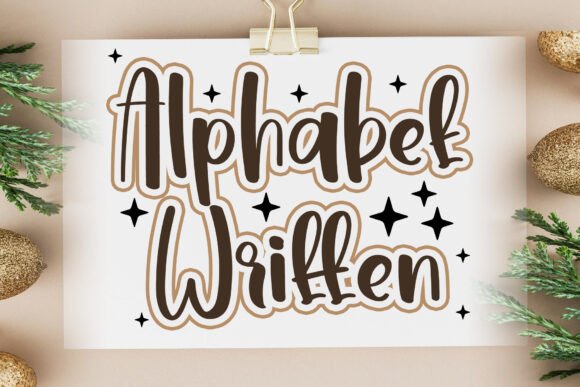
The Magic of Alphabet Written Font: Elevate Your Designs with Elegance
I’ll never forget the time I was working on a DIY project for a client’s wedding invitation. I had the perfect design concept, but I was struggling to find a font that would add a touch of elegance and sophistication. That’s when I stumbled upon Alphabet Written Font, and it completely transformed my design. In this article, I’ll share my experience with this beautiful handwritten font, its features, and how to make the most of it in your designs.
An Honest Review of Alphabet Written Font
As a designer, I’m always on the lookout for fonts that can help me create stunning visuals. Here’s my honest review of Alphabet Written Font:
• ✨ Elegant and sophisticated handwritten style
• ✅ Perfect for designs that require a touch of luxury and refinement
• 🎨 Highly versatile and can be used for various design projects, from Instagram posts to calligraphy scripts
• 💻 Carefully crafted to ensure excellent readability and legibility
• 🤔 Some users may find the font a bit too ornate for certain design projects
• ⚠️ Limited availability of certain OpenType features in older software versions
The Story Behind Alphabet Written Font
Alphabet Written Font was created by a talented type designer who’s passionate about crafting beautiful and elegant fonts. The designer’s inspiration for this font came from traditional calligraphy and handwritten scripts. The goal was to create a font that’s both elegant and sophisticated, yet highly versatile and easy to use.
Q: What is Alphabet Written Font?
A: Alphabet Written Font is a magical handwritten font carefully created to give a touch of elegance to your designs.
Q: What design projects is Alphabet Written Font suitable for?
A: Alphabet Written Font is highly versatile and can be used for various design projects, from Instagram posts to calligraphy scripts, wedding invitations, and more.